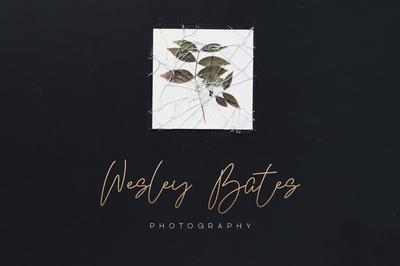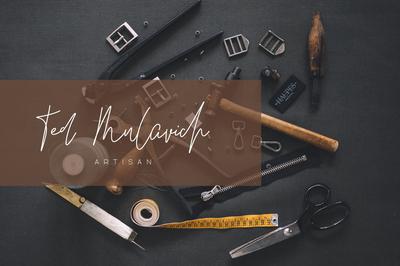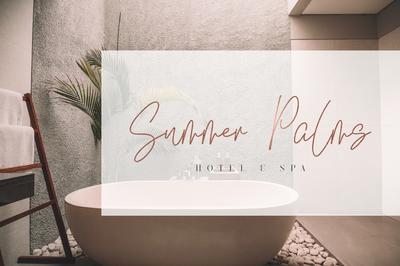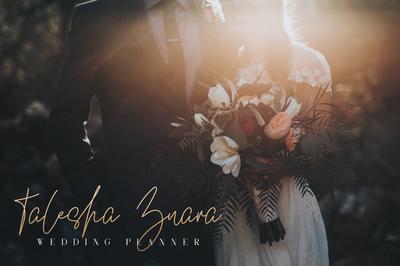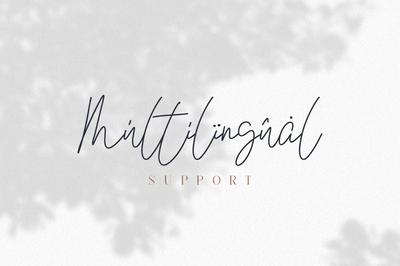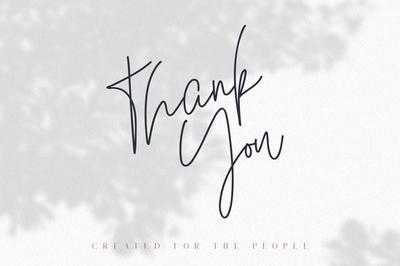
Kindel Script
Introducing Kindel Script
Kindel is clean script with multilingual support. It’s a very versatile font that works great in large and small sizes.
Kindel is perfect for branding projects, home-ware designs, product packaging, magazine headers – or simply as a stylish text overlay to any background image.
- Uppercase,lowercase,numeral,punctuation & Symbol
- Multilingual
- Ligatures